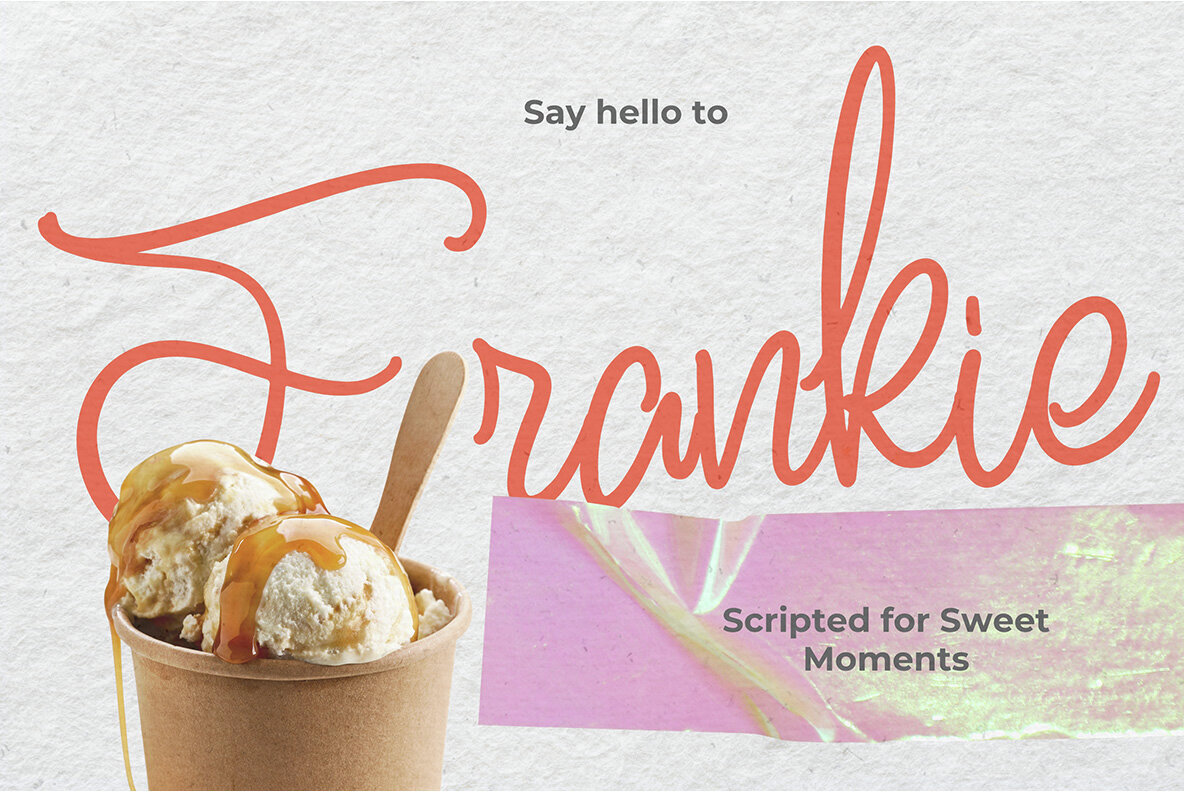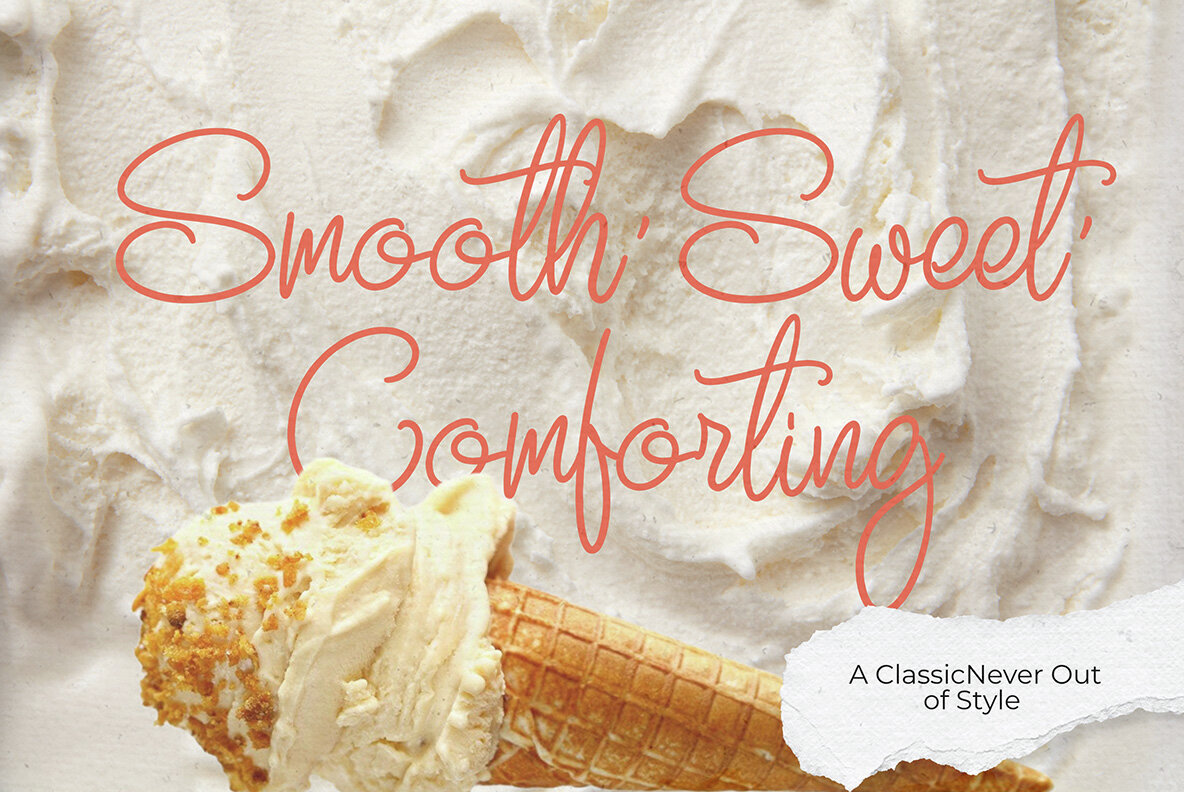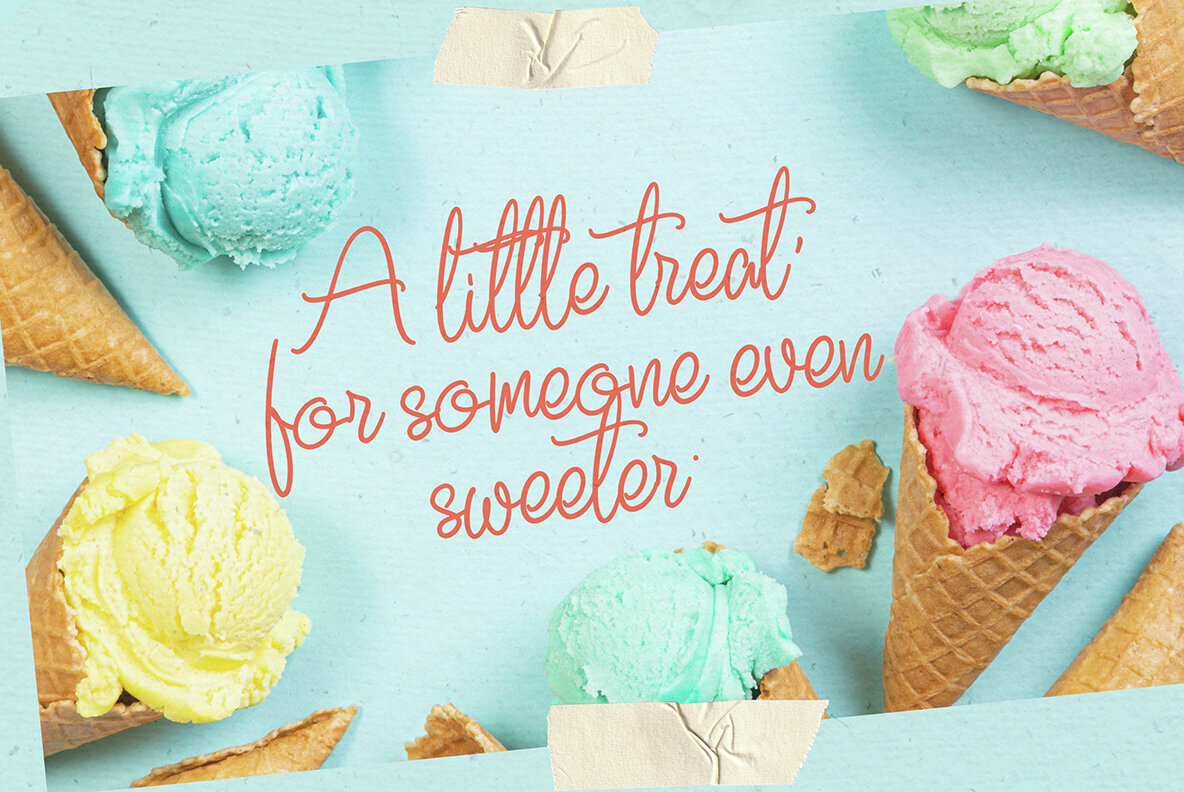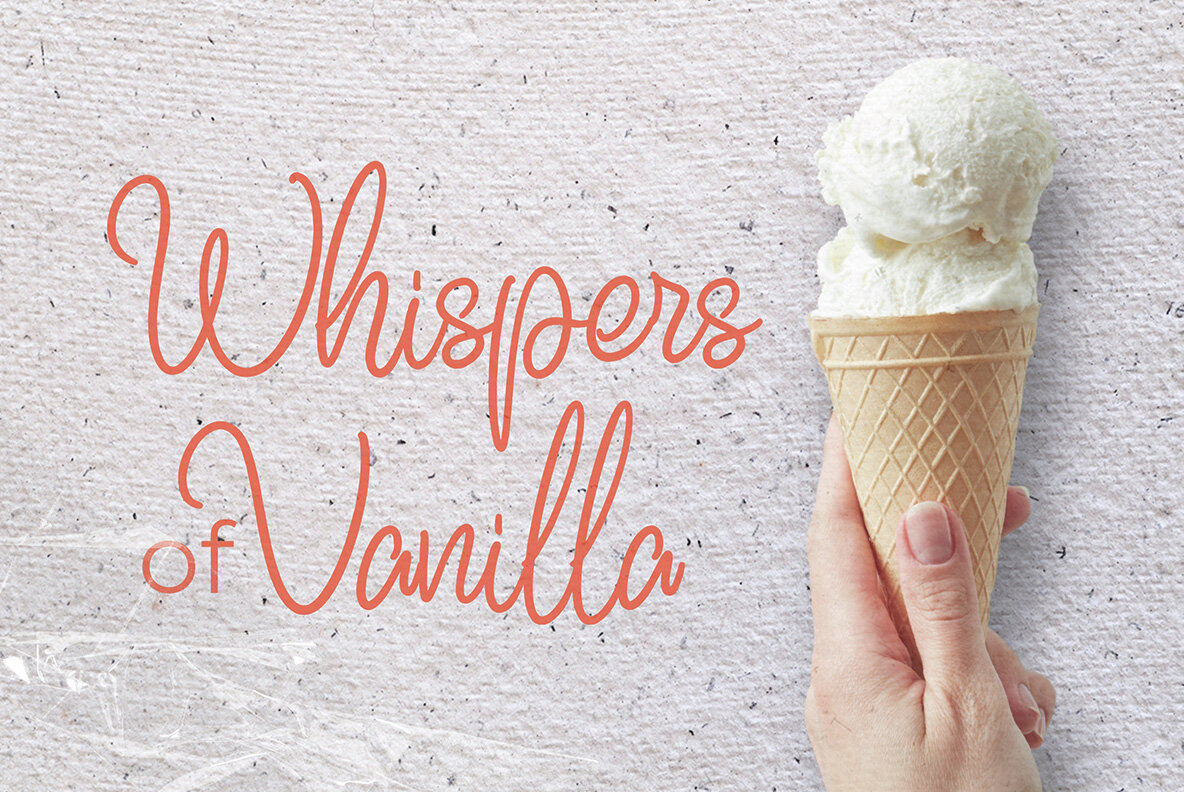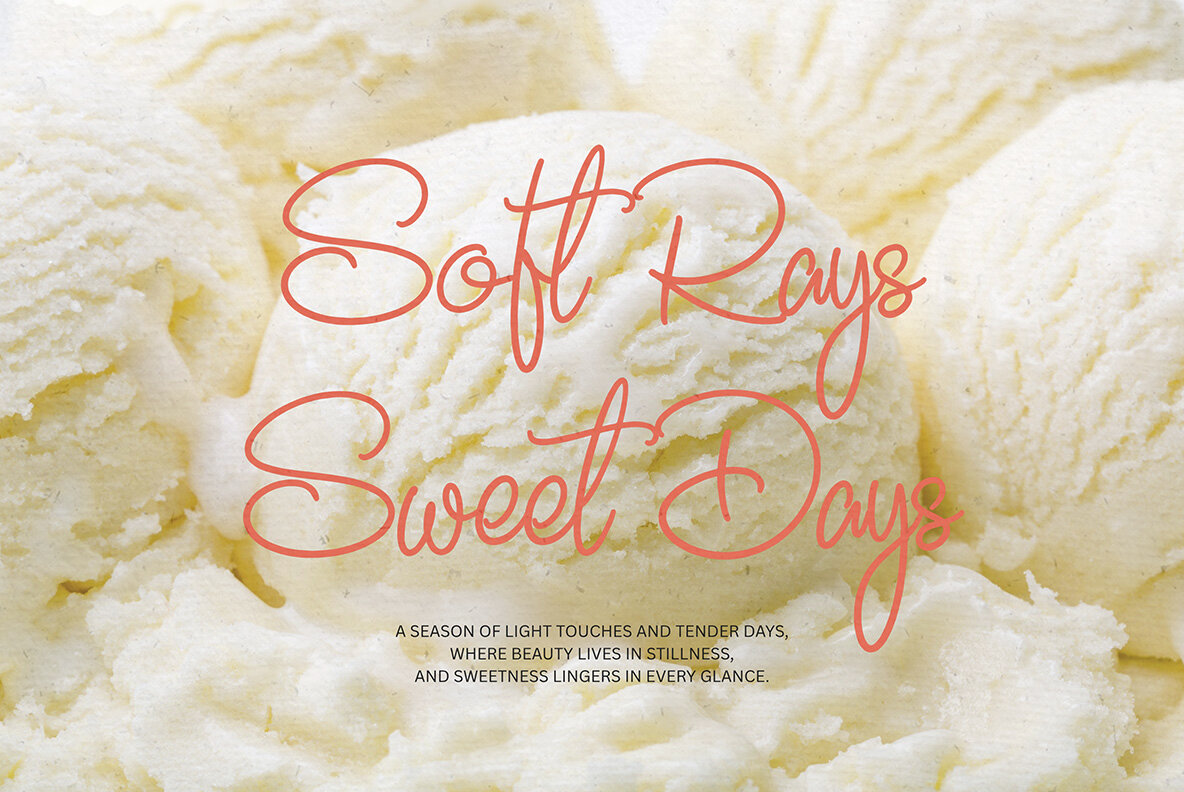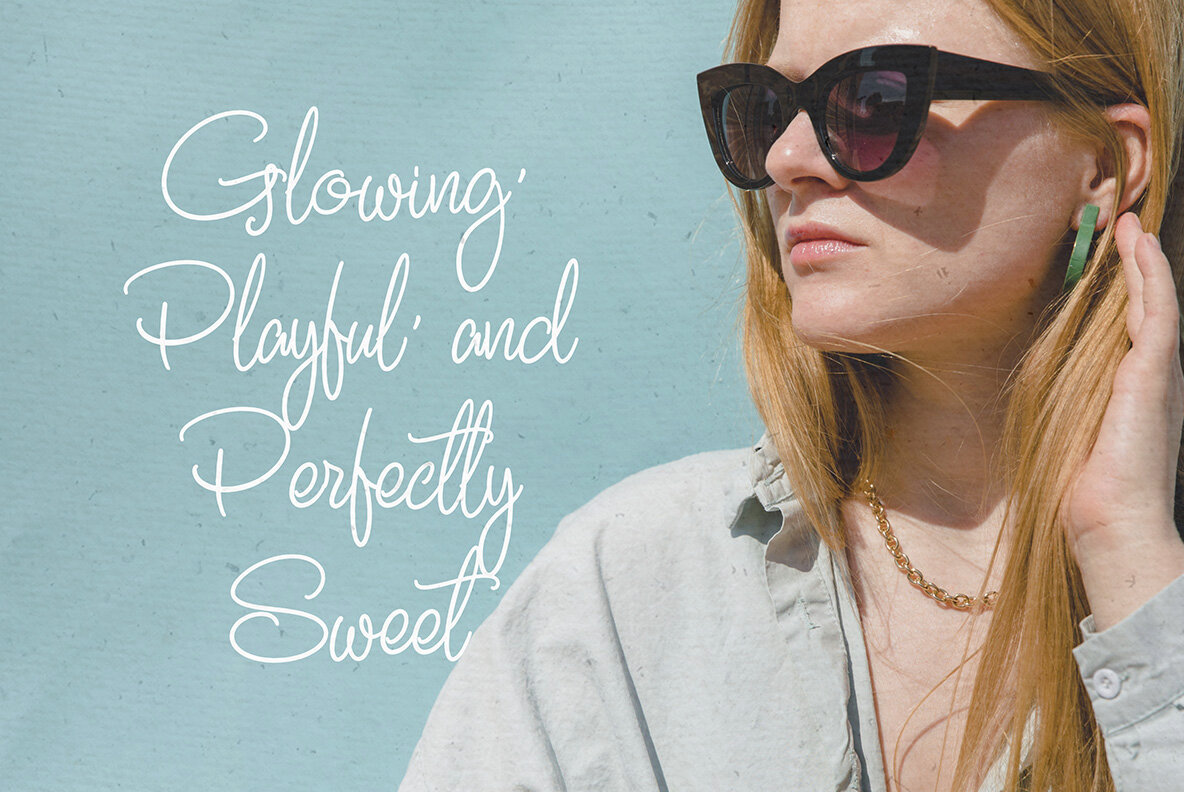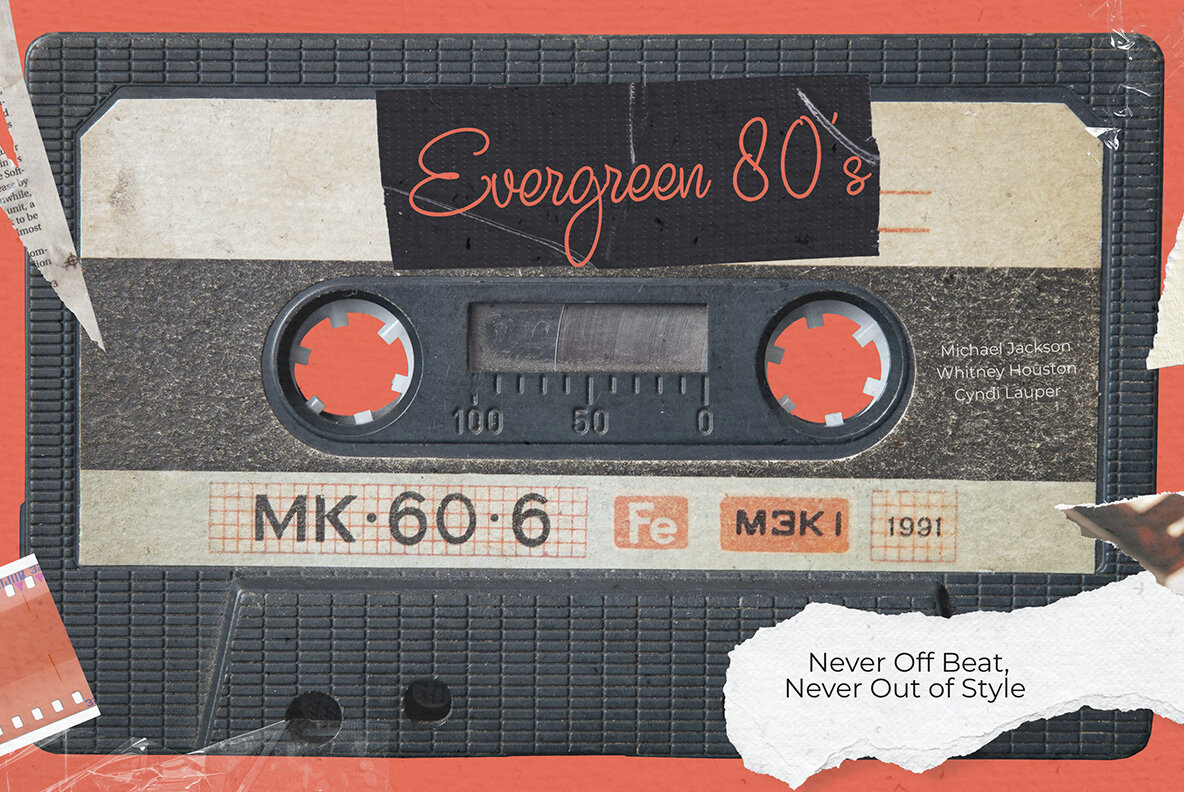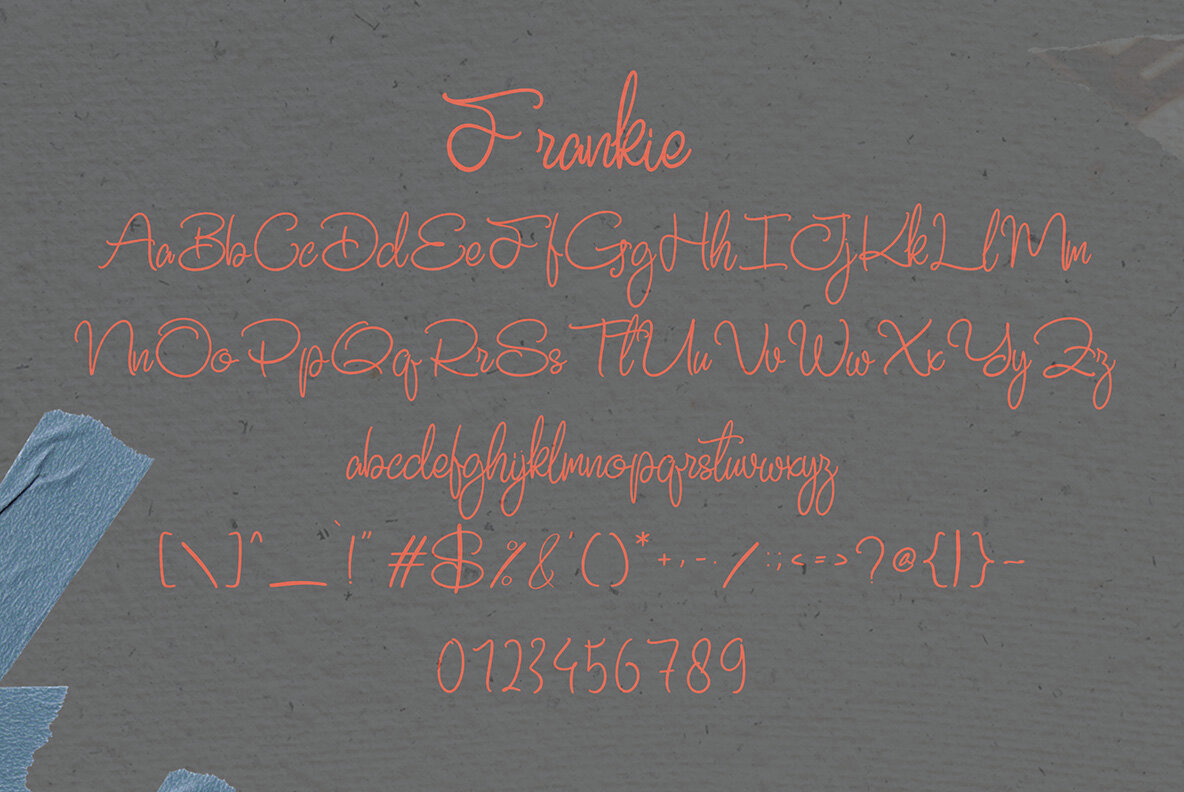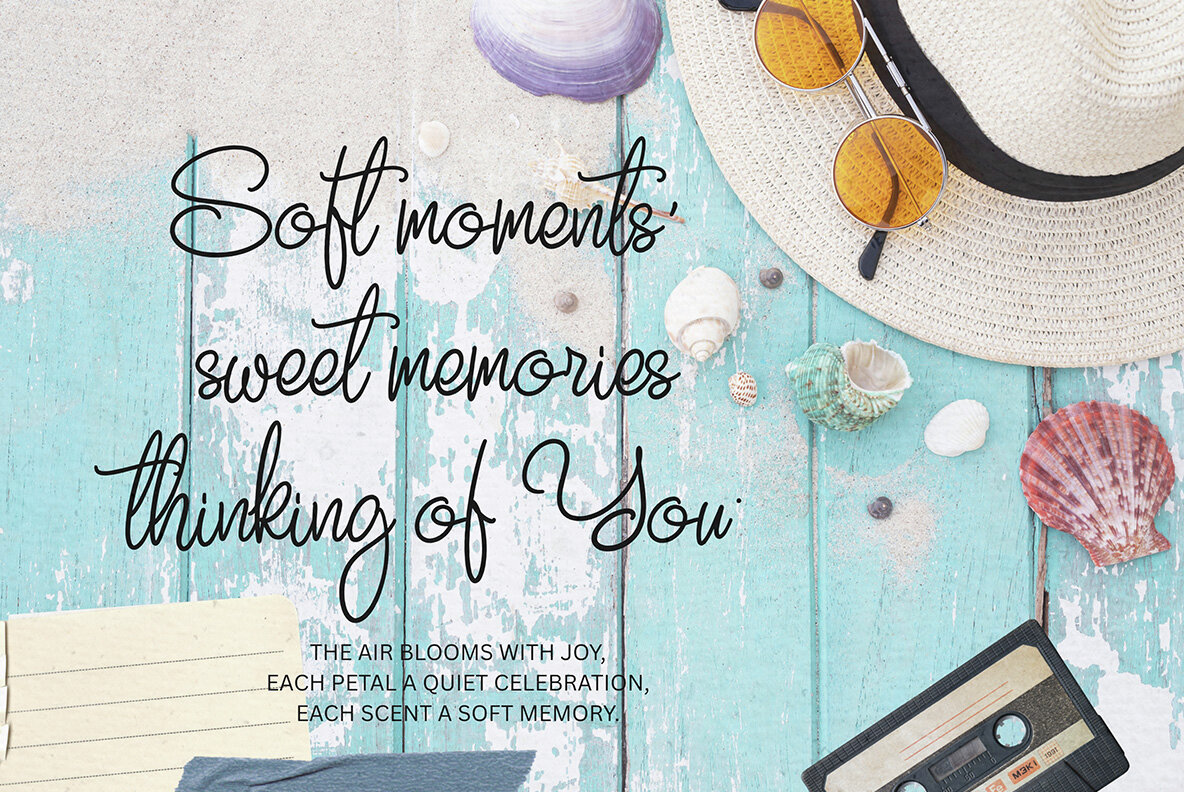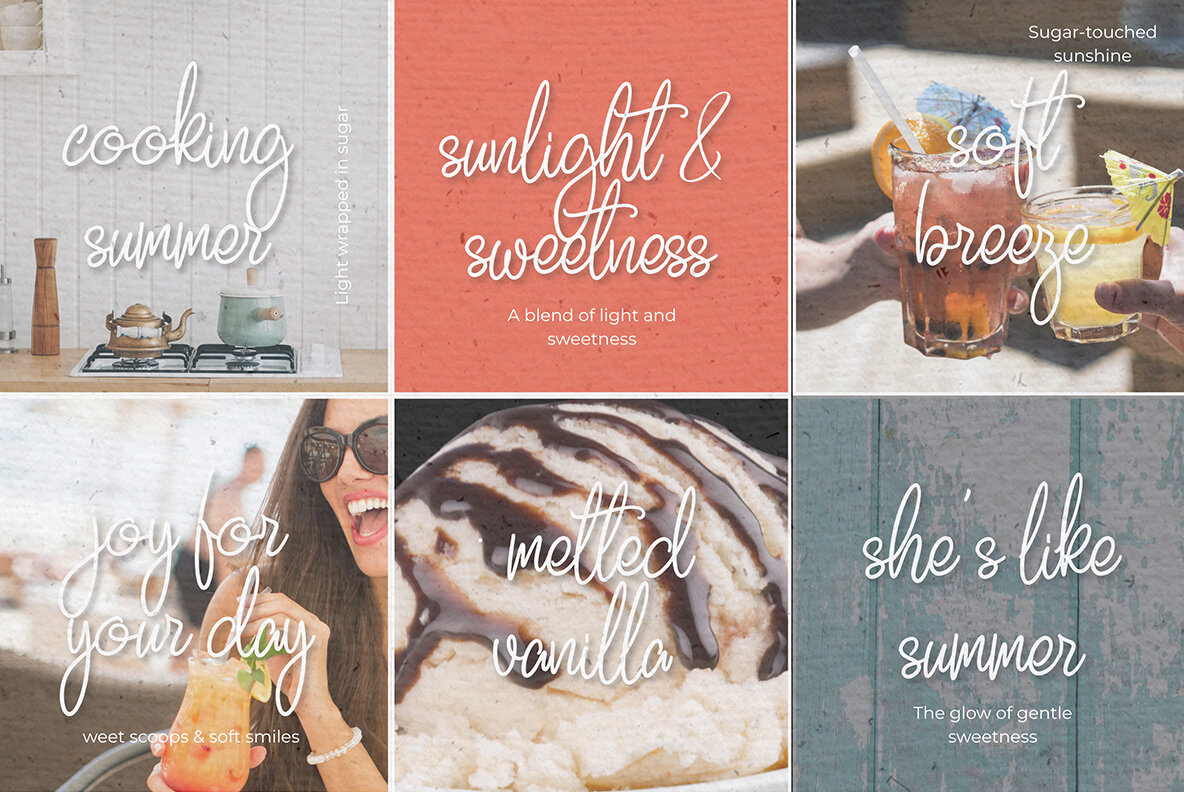
Frankie Font
Frankie Regular
The art of typography carries a profound ability to convey emotions, and Frankie embodies this with grace. This refined script typeface, characterized by its smooth curves and flowing strokes, brings a soothing charm and sincerity to any design. Its timeless elegance is perfectly suited for projects that celebrate love and meaningful moments. From wedding invitations and birth announcements to feminine branding and evocative social media graphics, Frankie offers versatility in abundance. This gentle script font harmonizes beautifully with both serif and sans-serif typefaces, making it a dependable choice for print and digital media alike.Frankie: Delicate Script Font for Heartfelt Designs